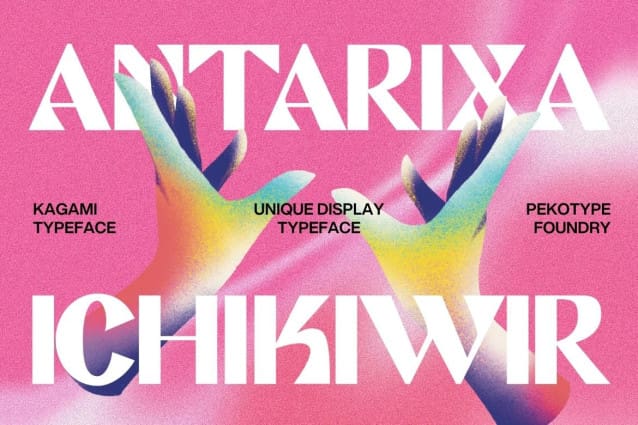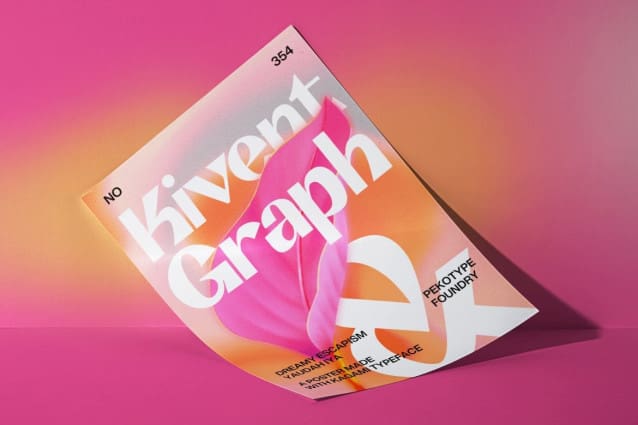
Kagami Display Font
Kagami Display Font is a display typeface characterized by its bold and distinctive style. It stands out with unique letterforms that carry a strong and impactful visual presence. Perfect for eye-catching designs, Kagami’s boldness adds a touch of individuality and flair to any project, making it a great choice for attention-grabbing headlines, posters, and branding materials.